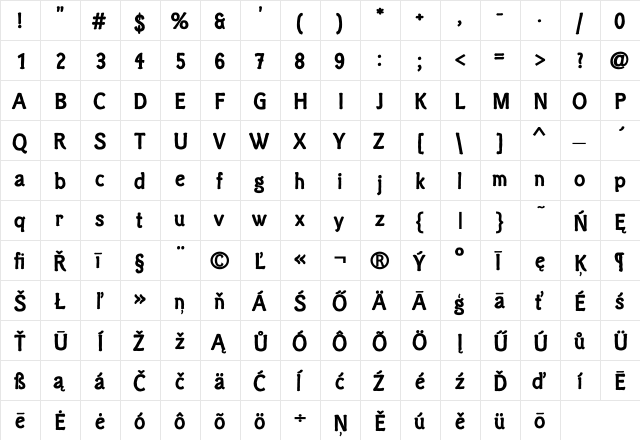
ClicheeCE Bold
Design Context for ClicheeCE Typeface
ClicheeCE takes a measured approach to typography — its balanced proportions and neutral character make it a reliable workhorse for both digital and print work. Its bold stroke weight gives it real presence on the page.